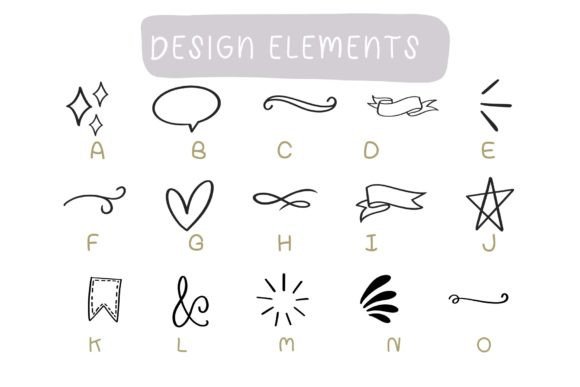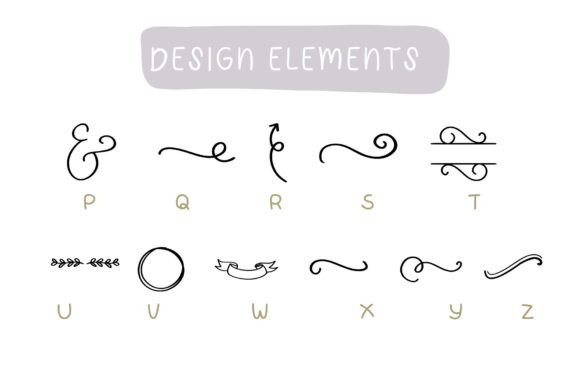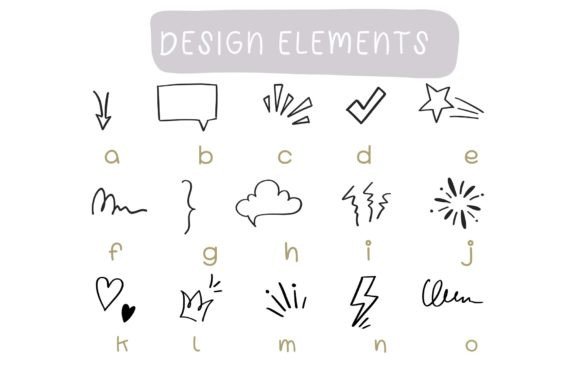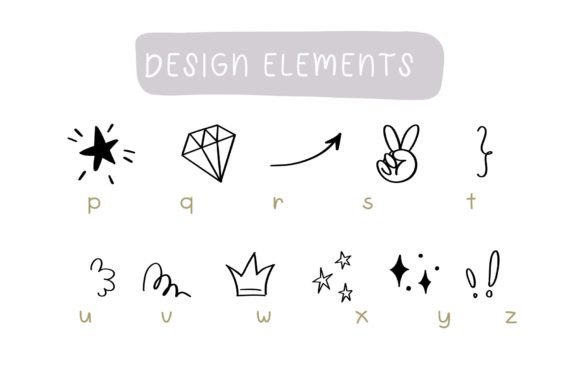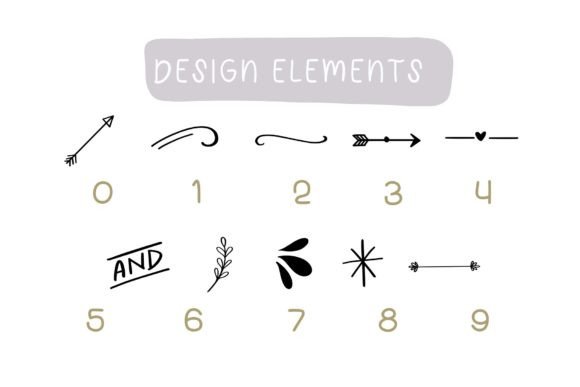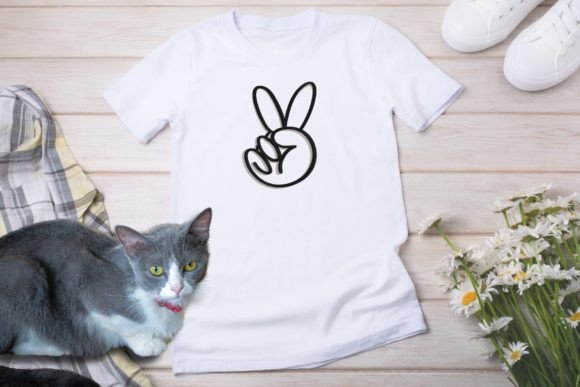
The Design Elements Font: A Sketched Style Delight for Creative Projects
I still remember the time I was working on a wedding invitation project, and I just couldn’t find the right font to match the theme. The client wanted something elegant, yet playful, and I was on the verge of pulling my hair out. That’s when I stumbled upon the Design Elements font – a dingbats font with a beautiful, sketched style that instantly elevated my design. In this article, I’ll share my experience with this lovely font, its features, and how you can make the most of it in your creative projects.
- ✨ Unique, hand-sketched style that adds a personal touch to any design
- ✅ Extensive library of glyphs, symbols, and icons to choose from
- ✅ Easy to use and pair with other fonts for a cohesive look
- ✅ Perfect for a variety of creative projects, from wedding invites to DIY crafts
⚠️ One thing to note is that Design Elements is a dingbats font, which means it’s primarily made up of symbols and glyphs. While this is great for adding visual interest, it may not be the best choice for body text or lengthy paragraphs. Additionally, some users may find the font a bit too ornate or busy for certain projects.
🤔 Another thing to consider is that Design Elements may not have the same level of versatility as some other fonts, particularly when it comes to adjusting font sizes or styles. However, this is a minor trade-off for the unique, hand-sketched style that this font offers.
- Experiment with different glyphs and symbols to add visual interest to your design
- Use the OpenType features to access stylistic alternates and other advanced typography options
- Experiment with different OpenType features, such as stylistic alternates and ligatures, to add depth and interest to your design
The Backstory of Design Elements
Design Elements was created with the intention of providing a unique, hand-sketched font that would add a personal touch to creative projects. The designer wanted to create a font that would be perfect for DIY enthusiasts, crafters, and designers who wanted to add a bit of elegance and sophistication to their work. With its extensive library of glyphs and symbols, Design Elements has become a popular choice for a wide range of creative projects.
Q: What type of projects is Design Elements best suited for?
A: Design Elements is perfect for a variety of creative projects, including wedding invitations, DIY crafts, decorations, logos, and more.
Q: Is Design Elements easy to use?
A: Yes, Design Elements is relatively easy to use, even for those without extensive design experience. The font comes with an extensive library of glyphs and symbols, and can be used in a variety of design platforms.
Q: Can I use Design Elements with other fonts?
A: Yes, Design Elements can be paired with other fonts to create a unique and cohesive look. Experiment with different font combinations to find the perfect look for your project.